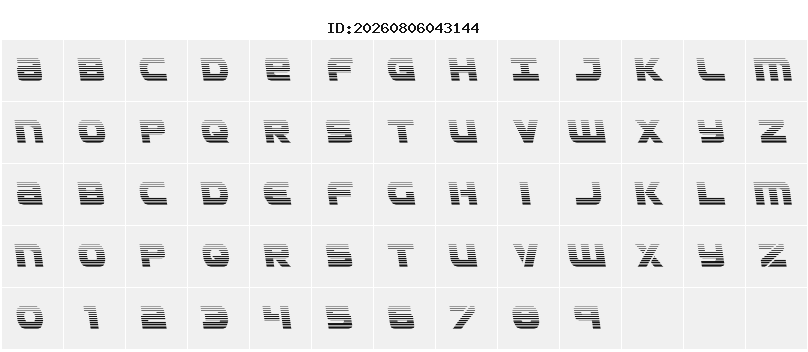
Ozda Gradient Leftalic Preview
• Font Name: Ozda Gradient Leftalic
• Full Font Name: Ozda Gradient Leftalic
About Ozda Gradient Leftalic.ttf
Ozda Gradient Leftalic.ttf is a modern, elegant sans-serif font designed for ultimate readability and visual harmony. Perfect for branding, headlines, web design, and print materials.